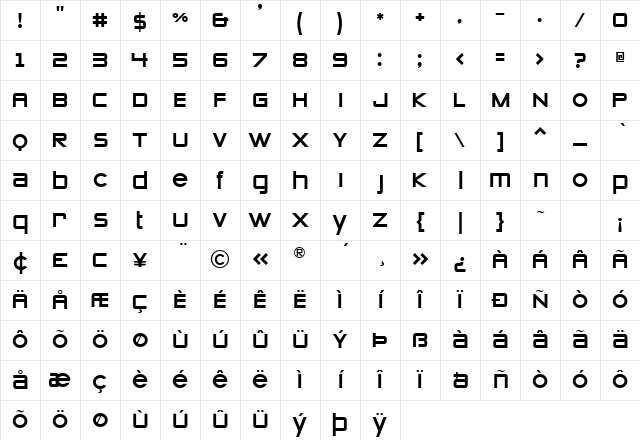
STOMP_Zeroes Regular Free Font
STOMP_Zeroes Regular
Design Context for STOMP_Zeroes
STOMP_Zeroes is a composed and adaptable typeface that performs quietly and consistently across a wide range of design contexts.
Pro Tip: Use STOMP_Zeroes in both headline and body roles to test its range before committing to a single application.